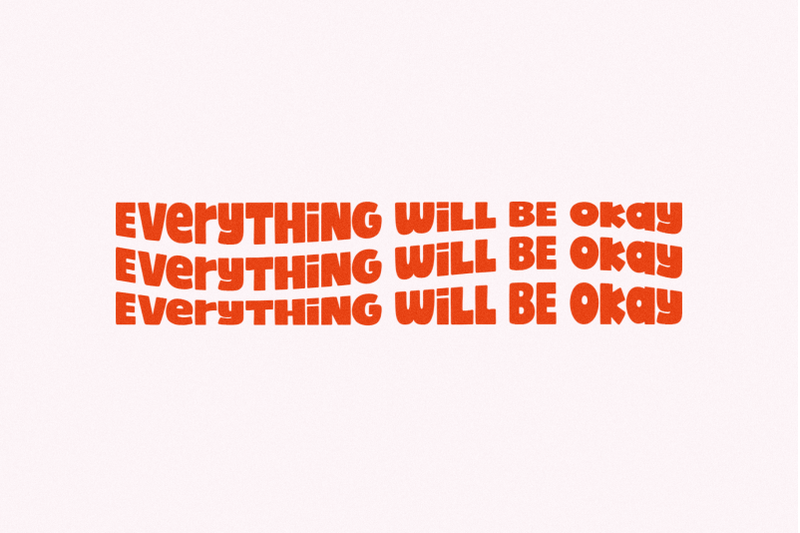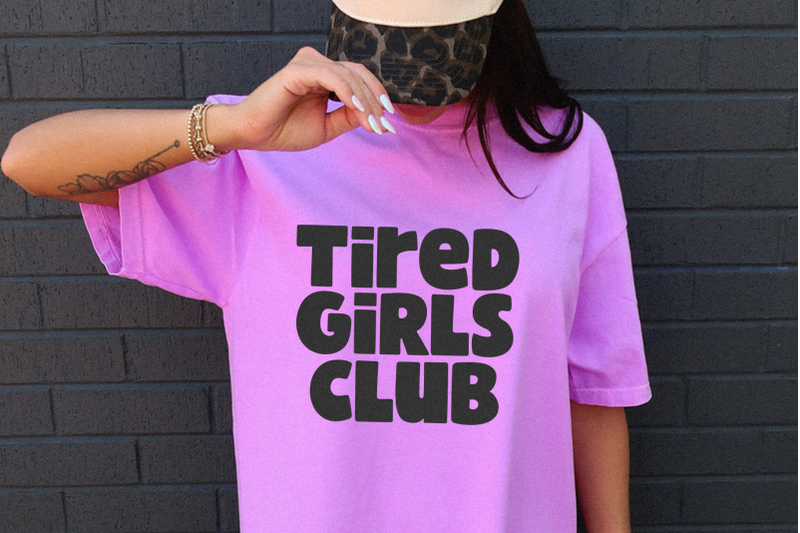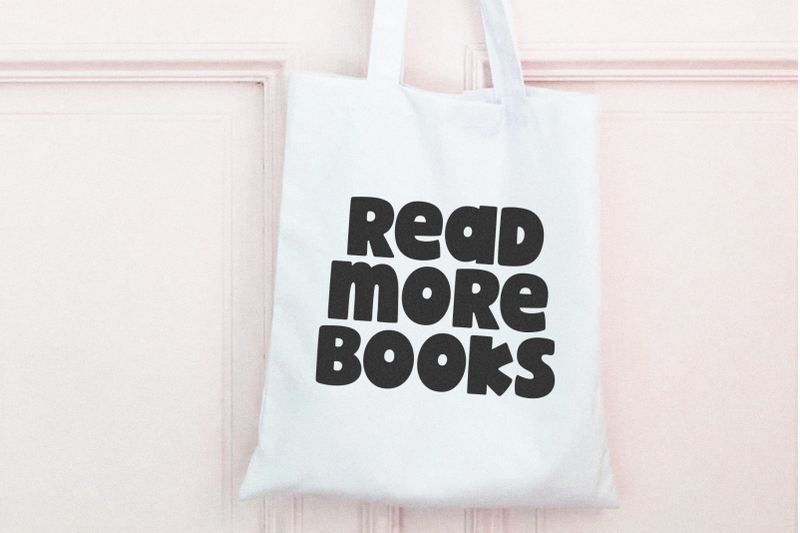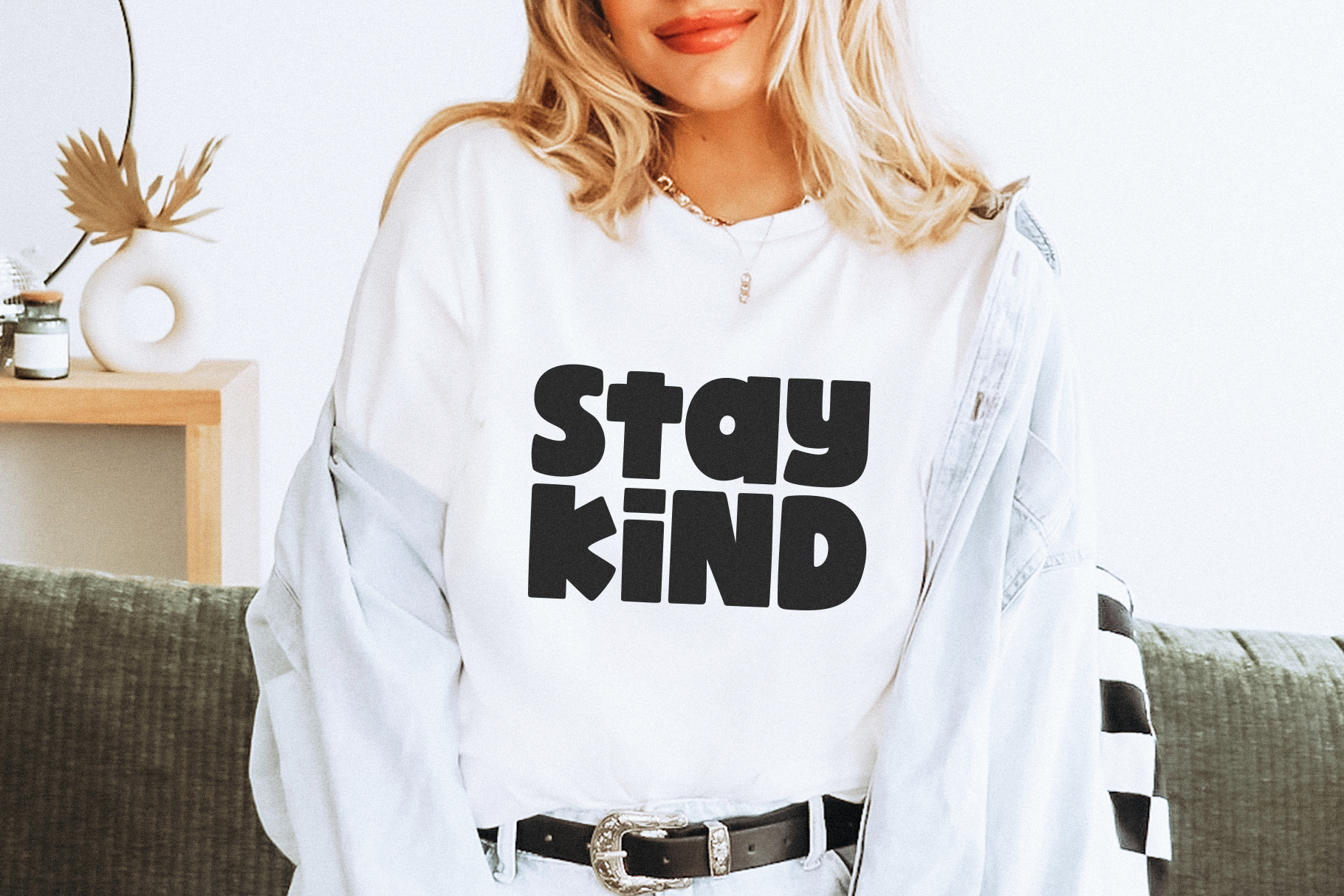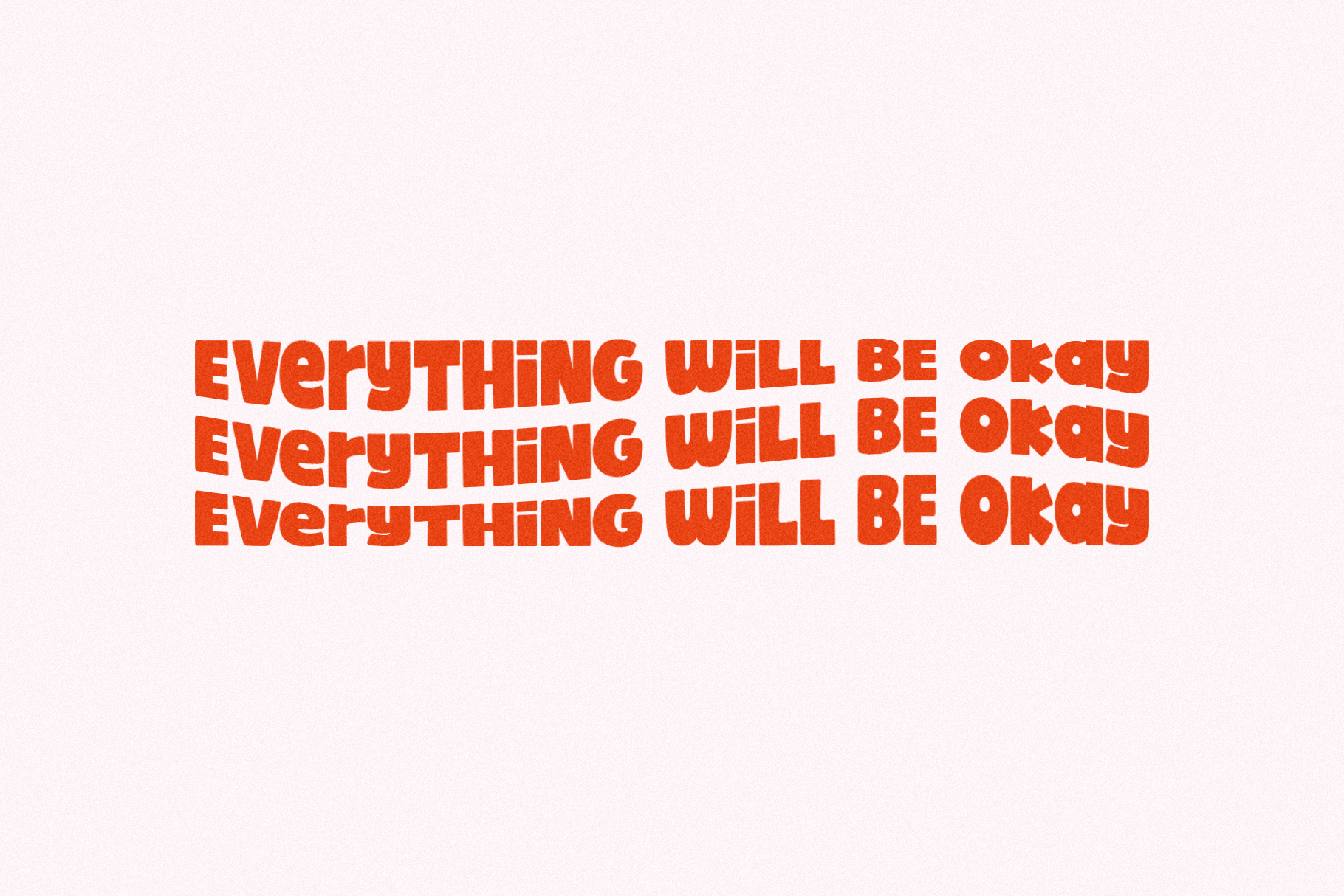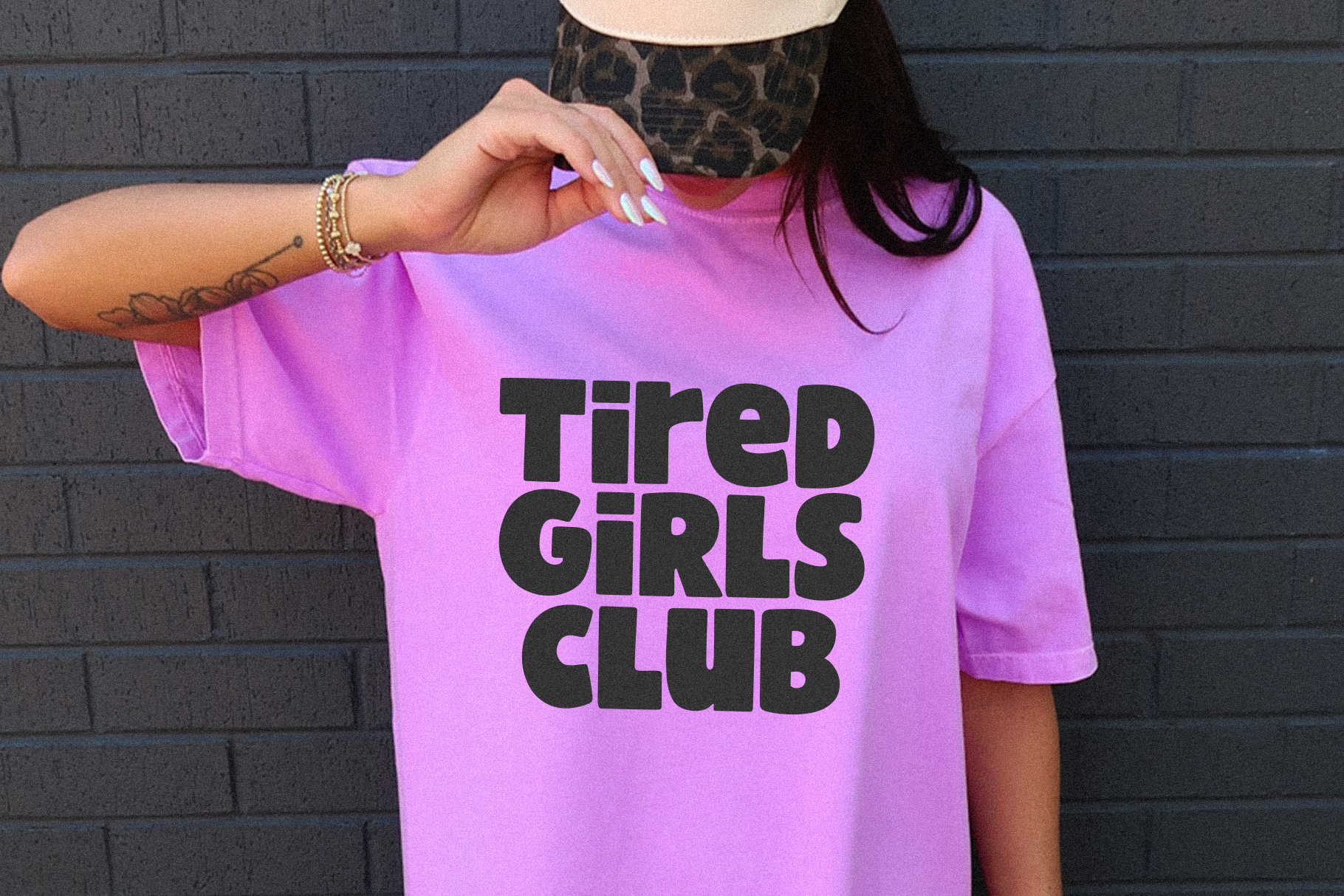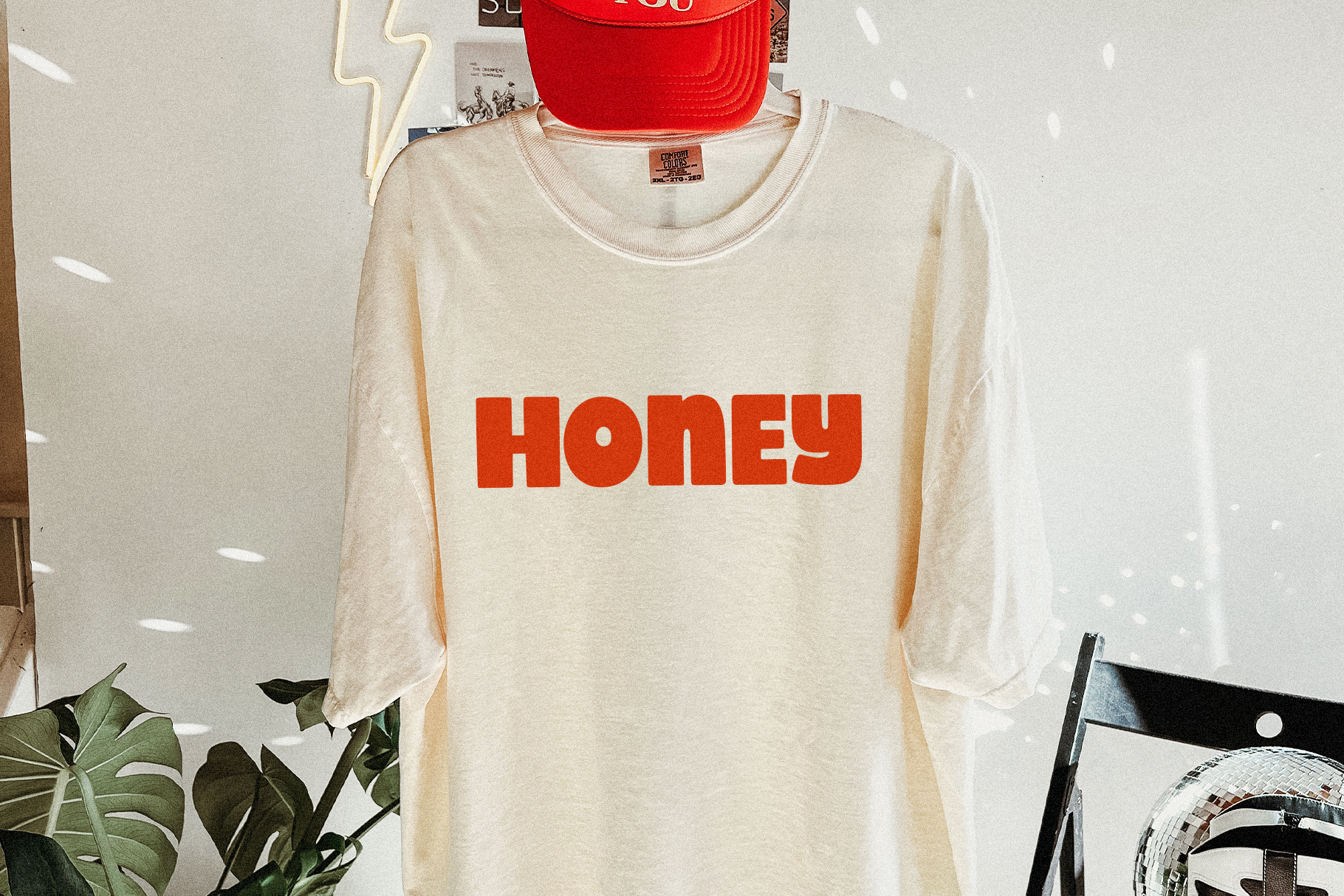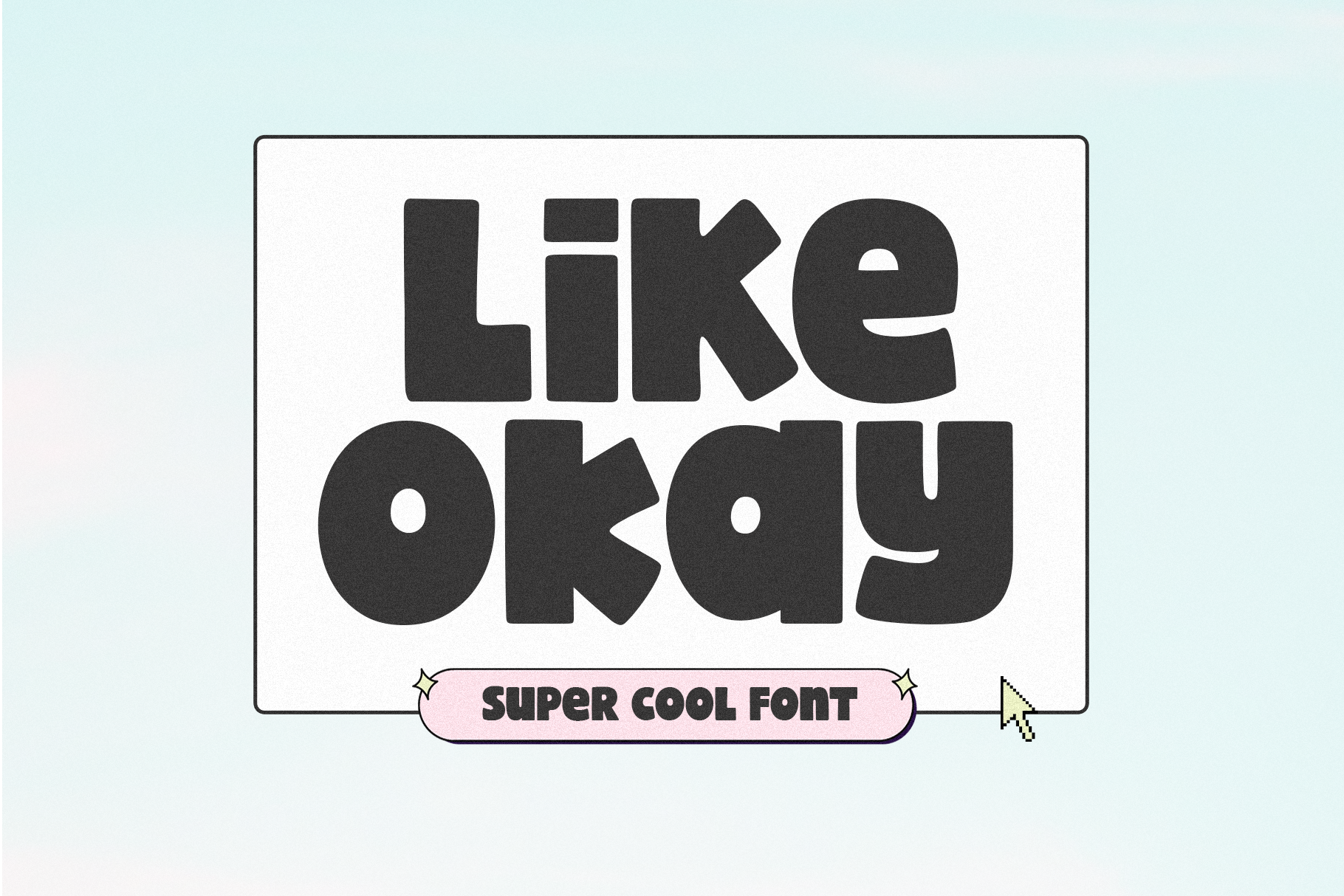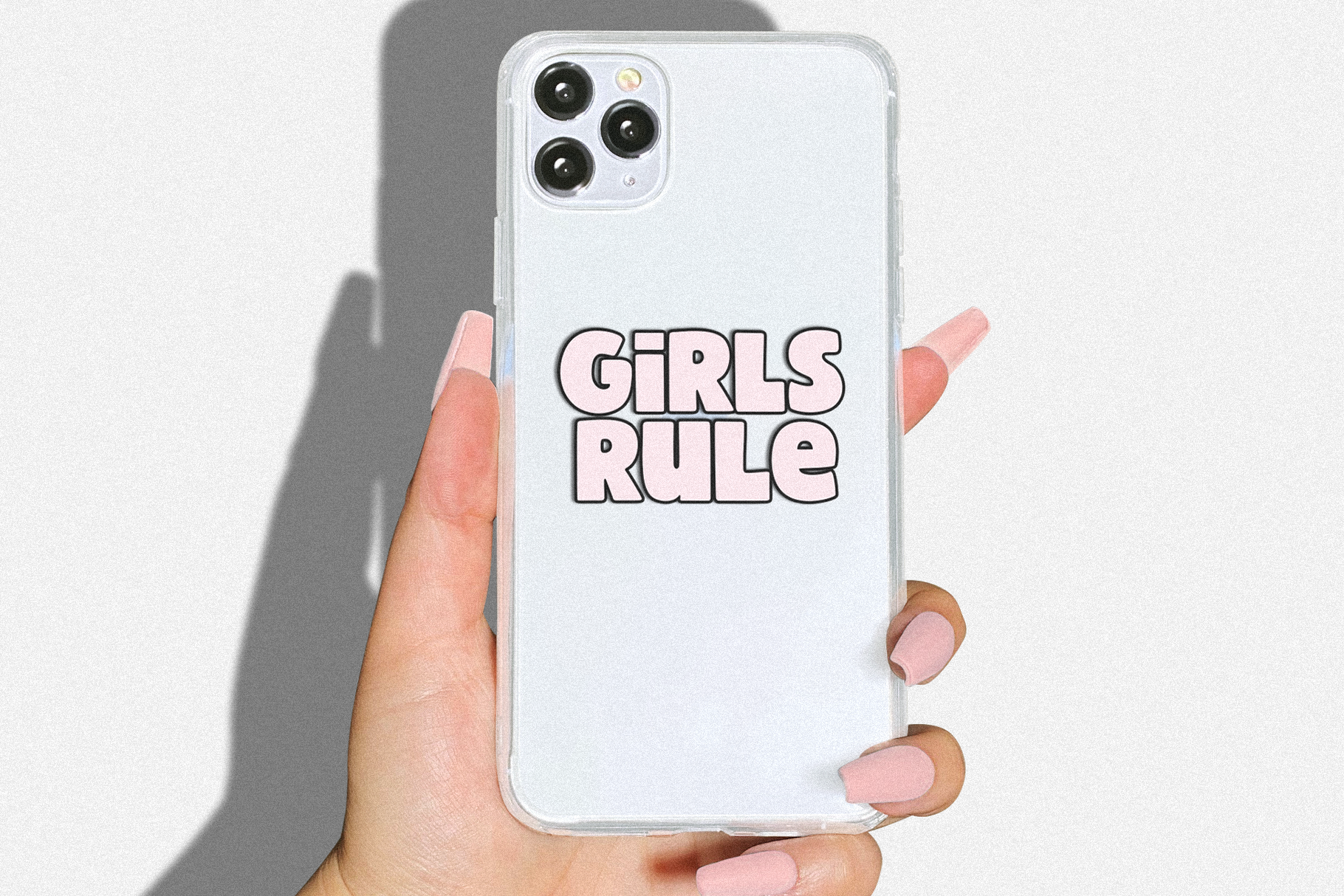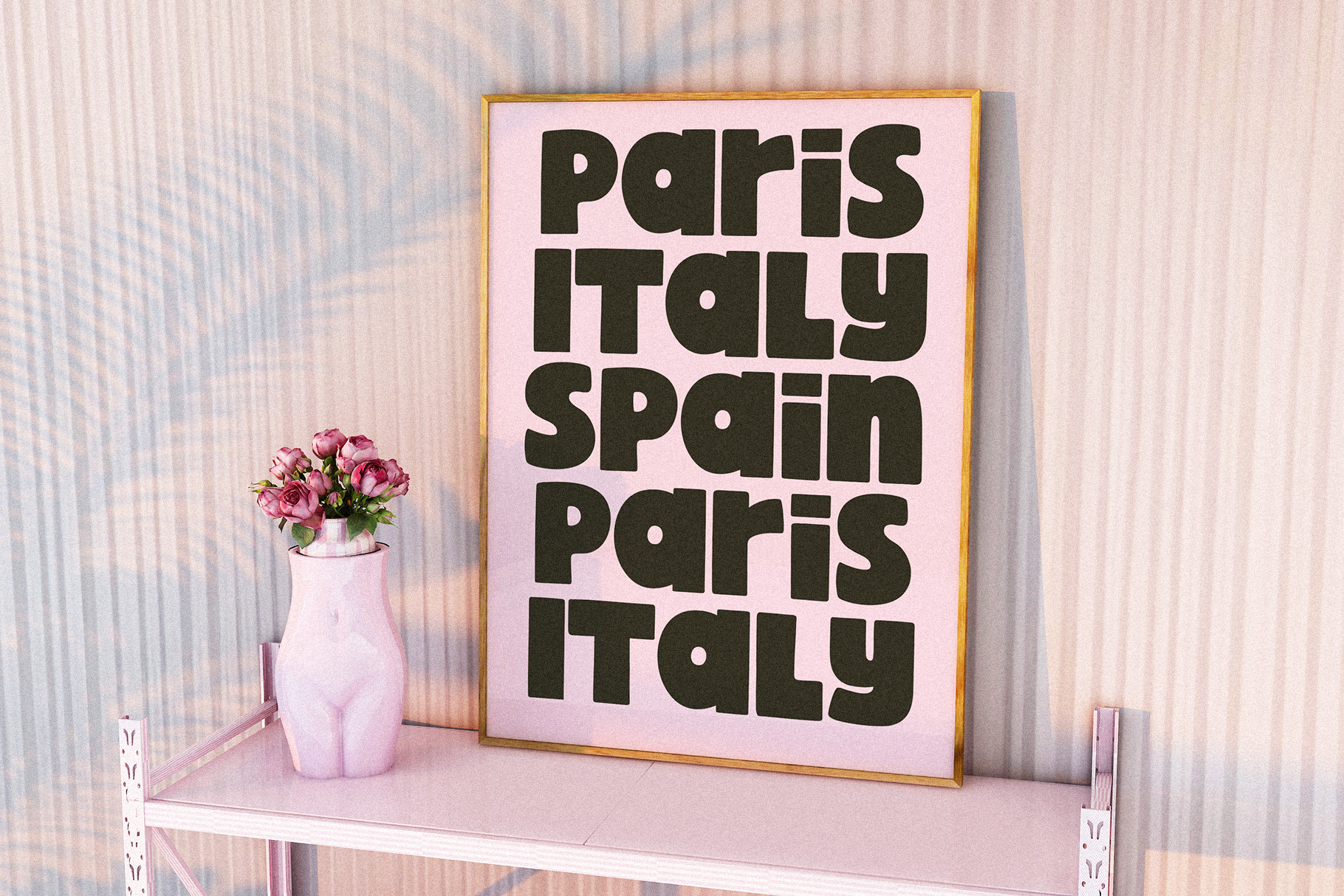
Like Okay - Bold Bubbly Font
Like Okay is a bold bubbly font.   This font is perfect for cricut projects, logos, shirts, svg files, planners, stickers, quotes, social media and more!   OTF/TTF included   Thank you!